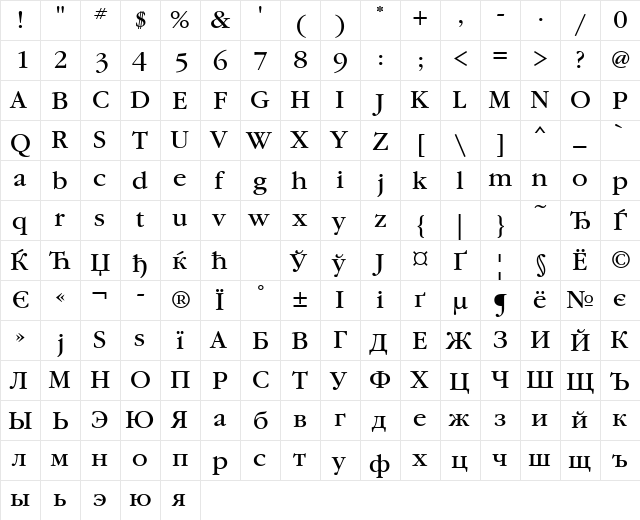
GaramondBookCTT Regular
Design Context for GaramondBookCTT Typeface
GaramondBookCTT is a composed and adaptable typeface that performs quietly and consistently across a wide range of design contexts.